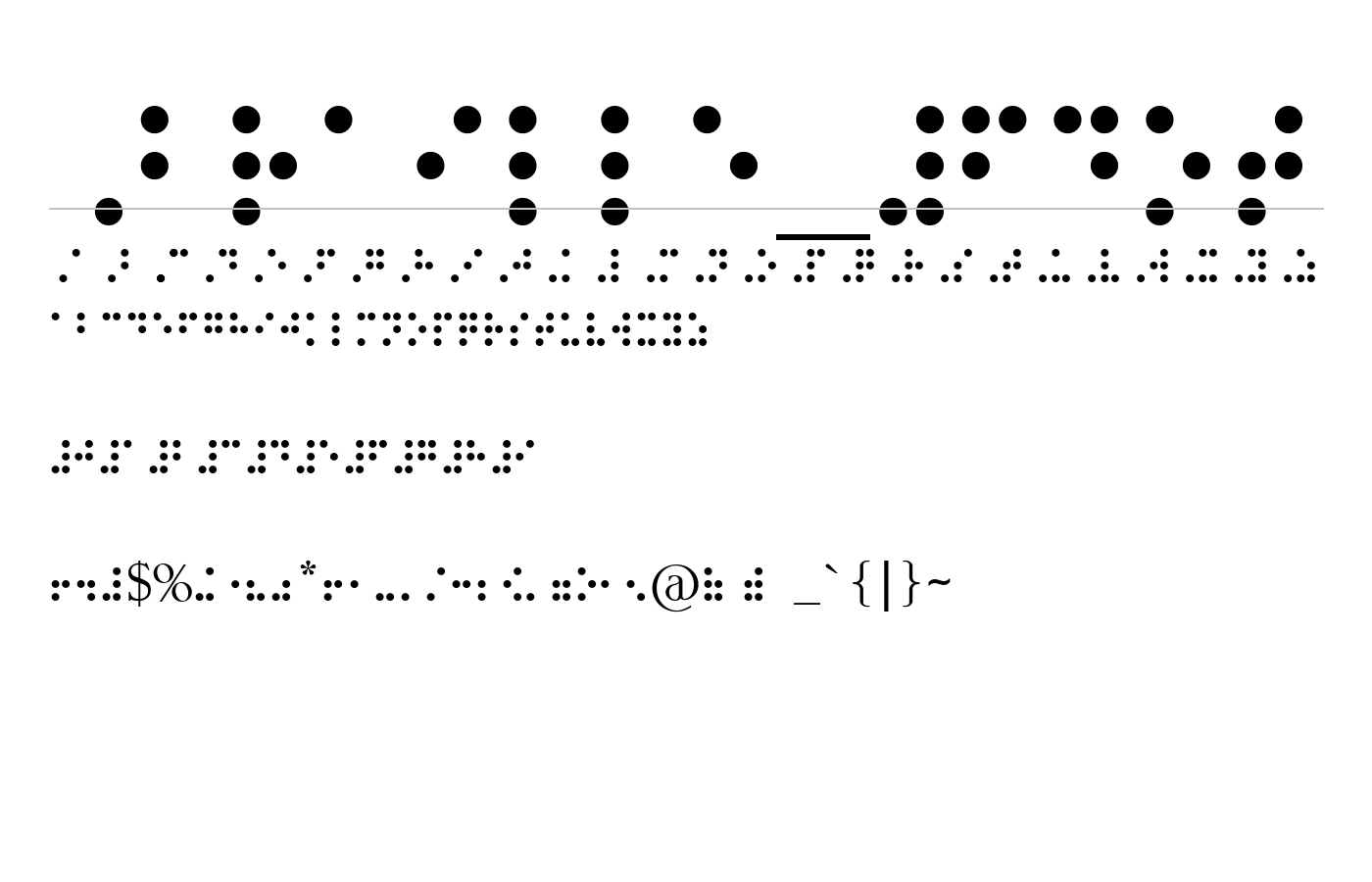
Braille_6dot is a unique symbolic font designed to replicate the tactile Braille writing system, using a clean grid of raised dots to represent characters. Its geometric dot pattern is minimal and functional, lending an innovative and accessible feel, making it ideal for educational materials, accessibility-focused design, or creative projects that want to emphasize inclusivity and communication. This font works best in large sizes or displays where the dot formations can be clearly discerned and appreciated.
Braille_6dot Font
About Braille_6dot Font